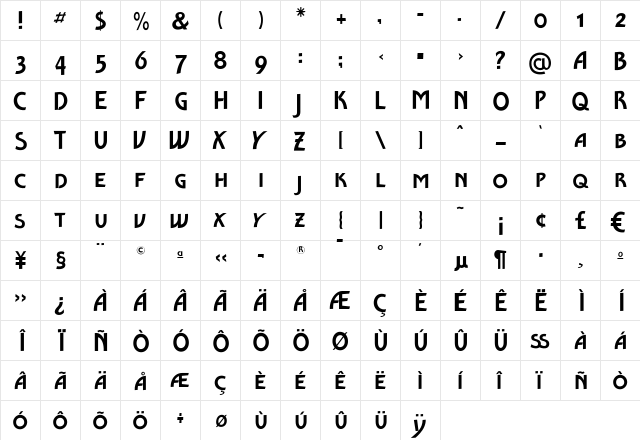
Ventoux Plain SmallCaps Regular
Design Context for Ventoux Plain SmallCaps Typeface
Ventoux Plain SmallCaps offers clean, dependable letterforms without strong stylistic allegiance, making it a practical choice for designers who need flexibility.
Pro Tip: Use Ventoux Plain SmallCaps in both headline and body roles to test its range before committing to a single application.